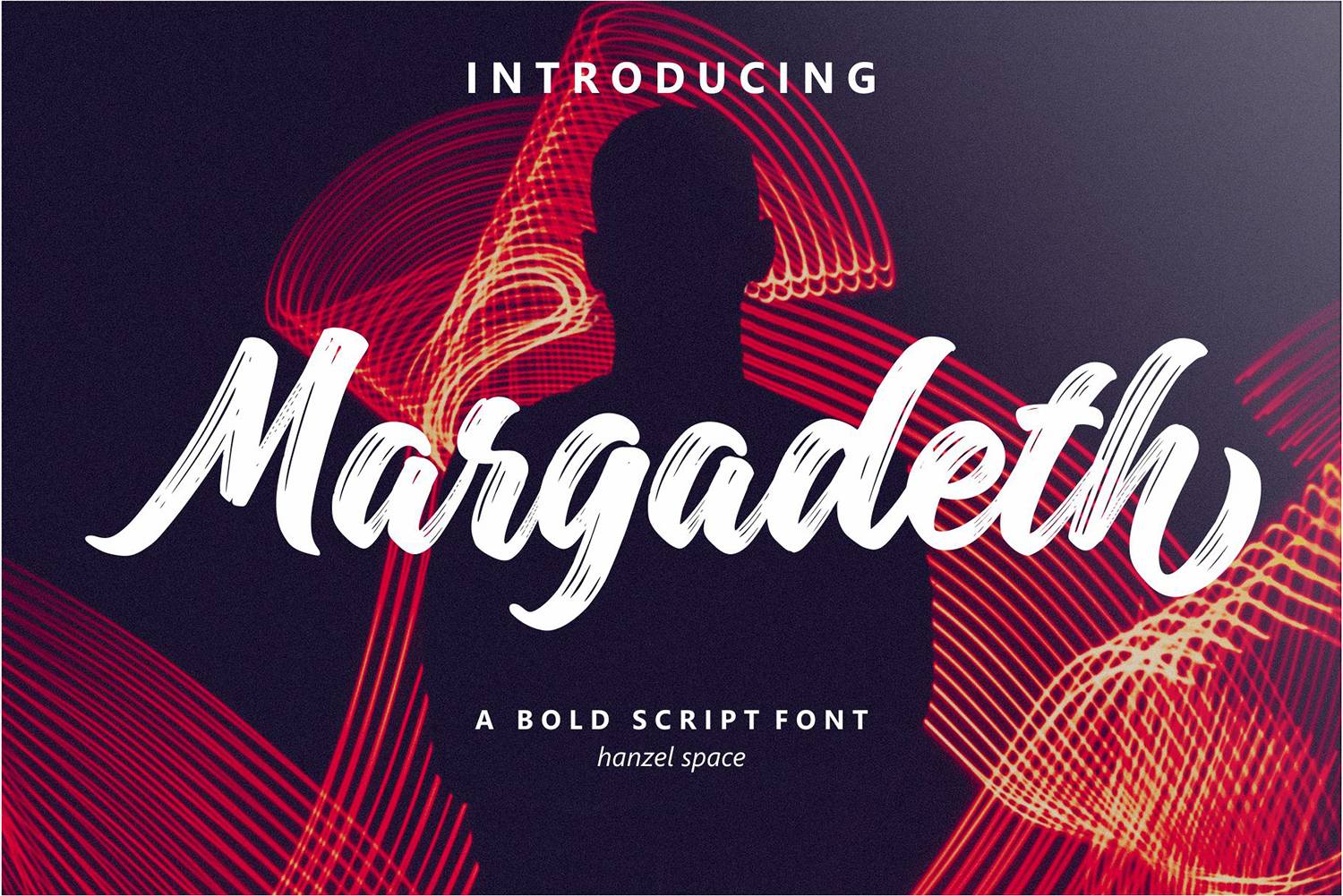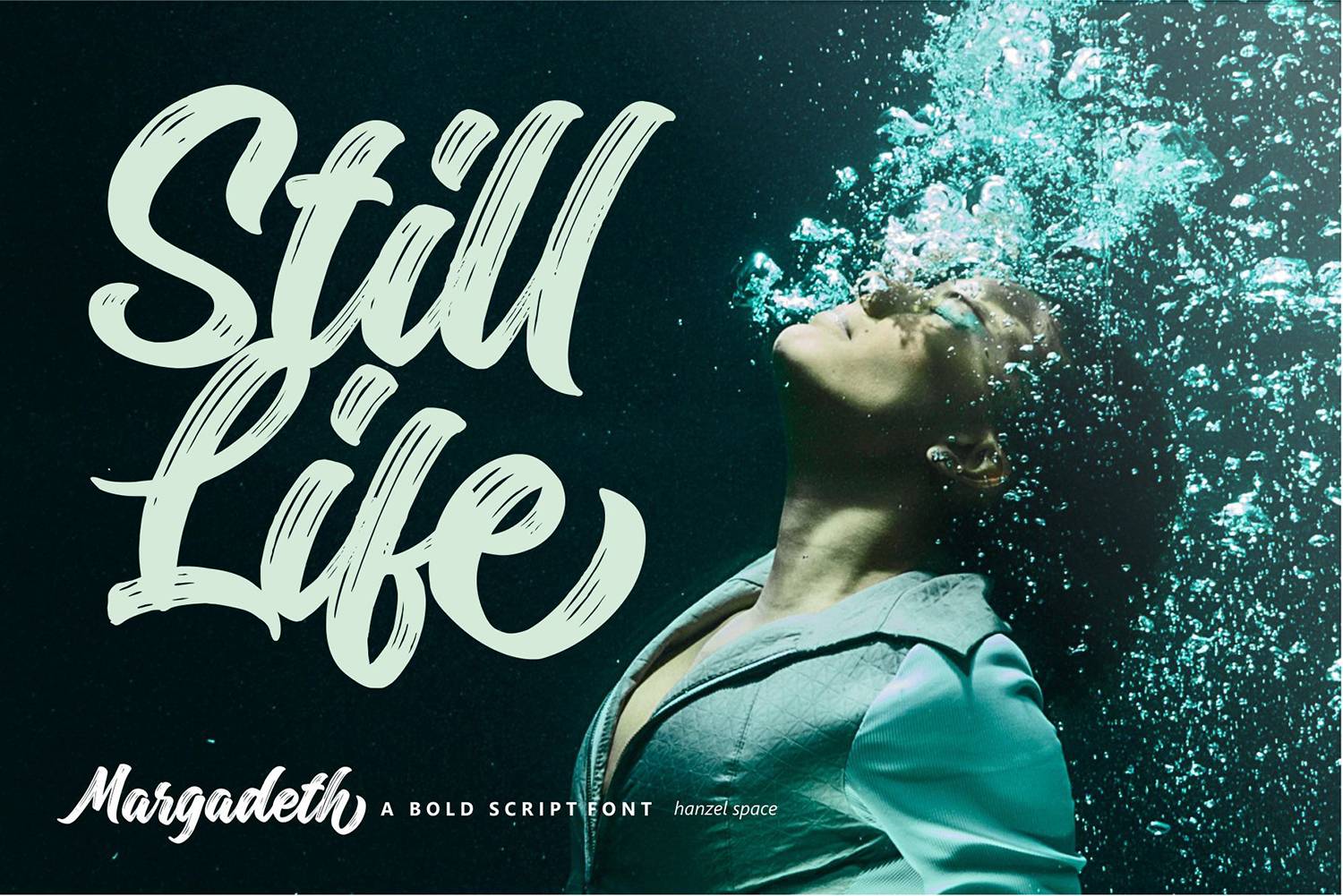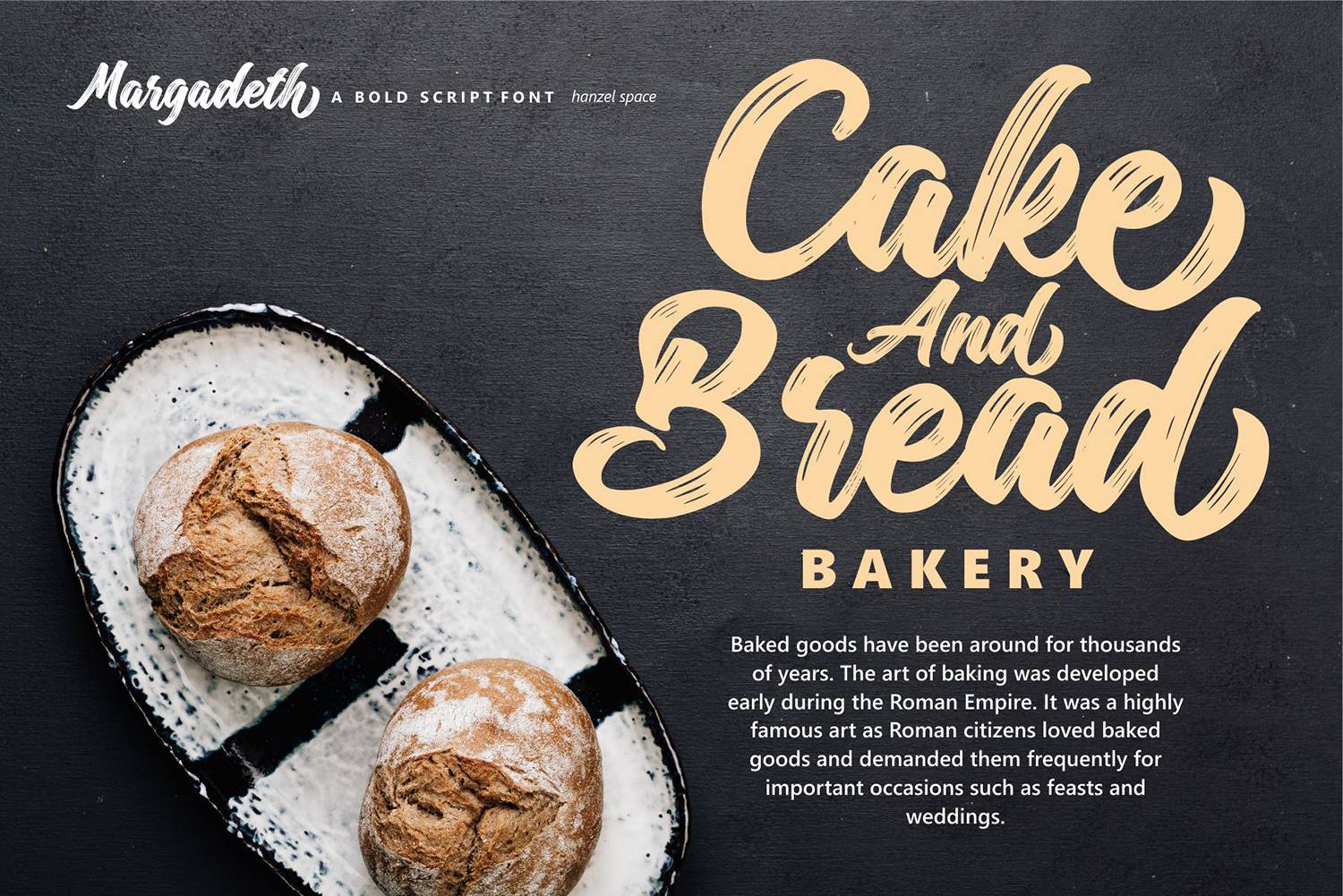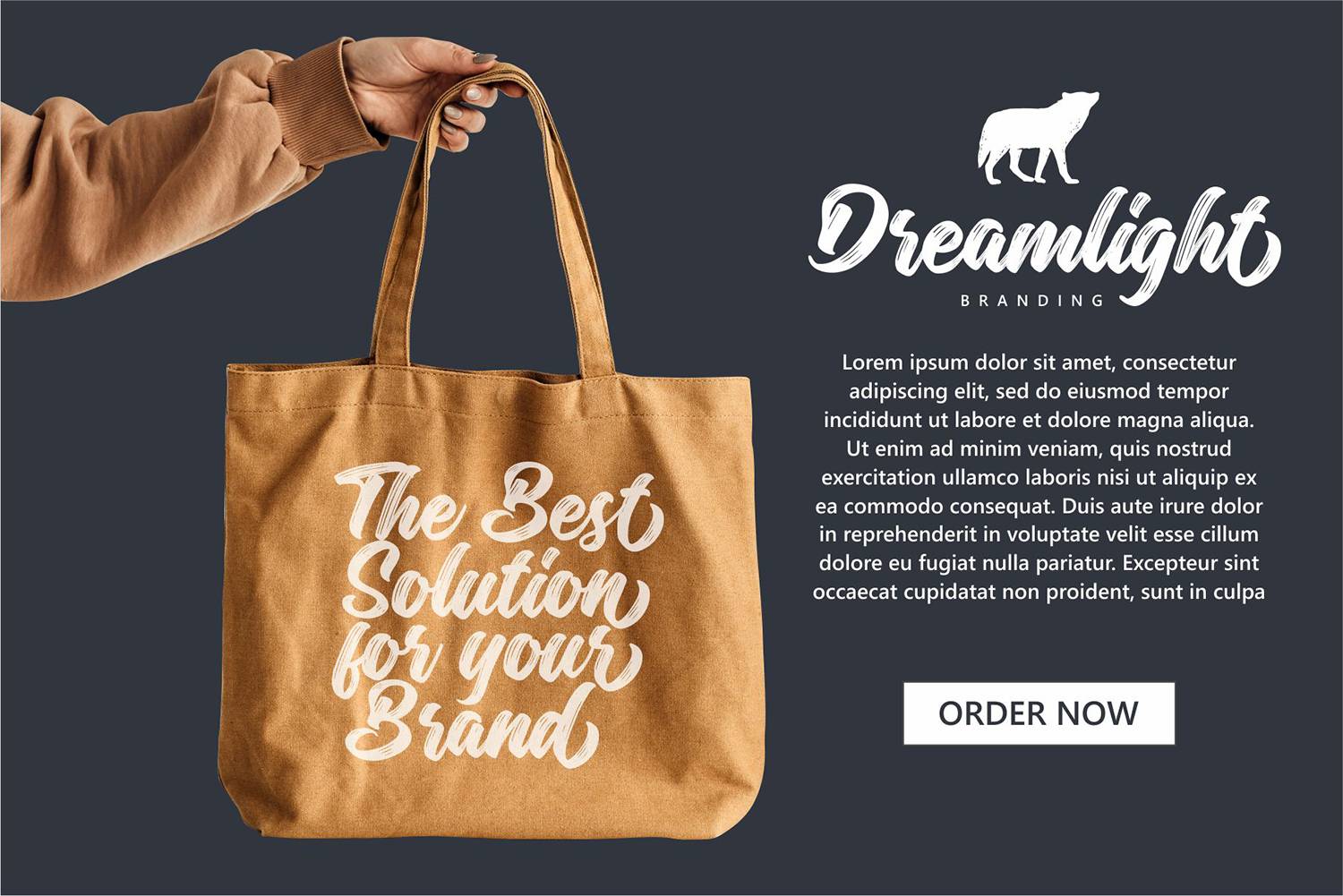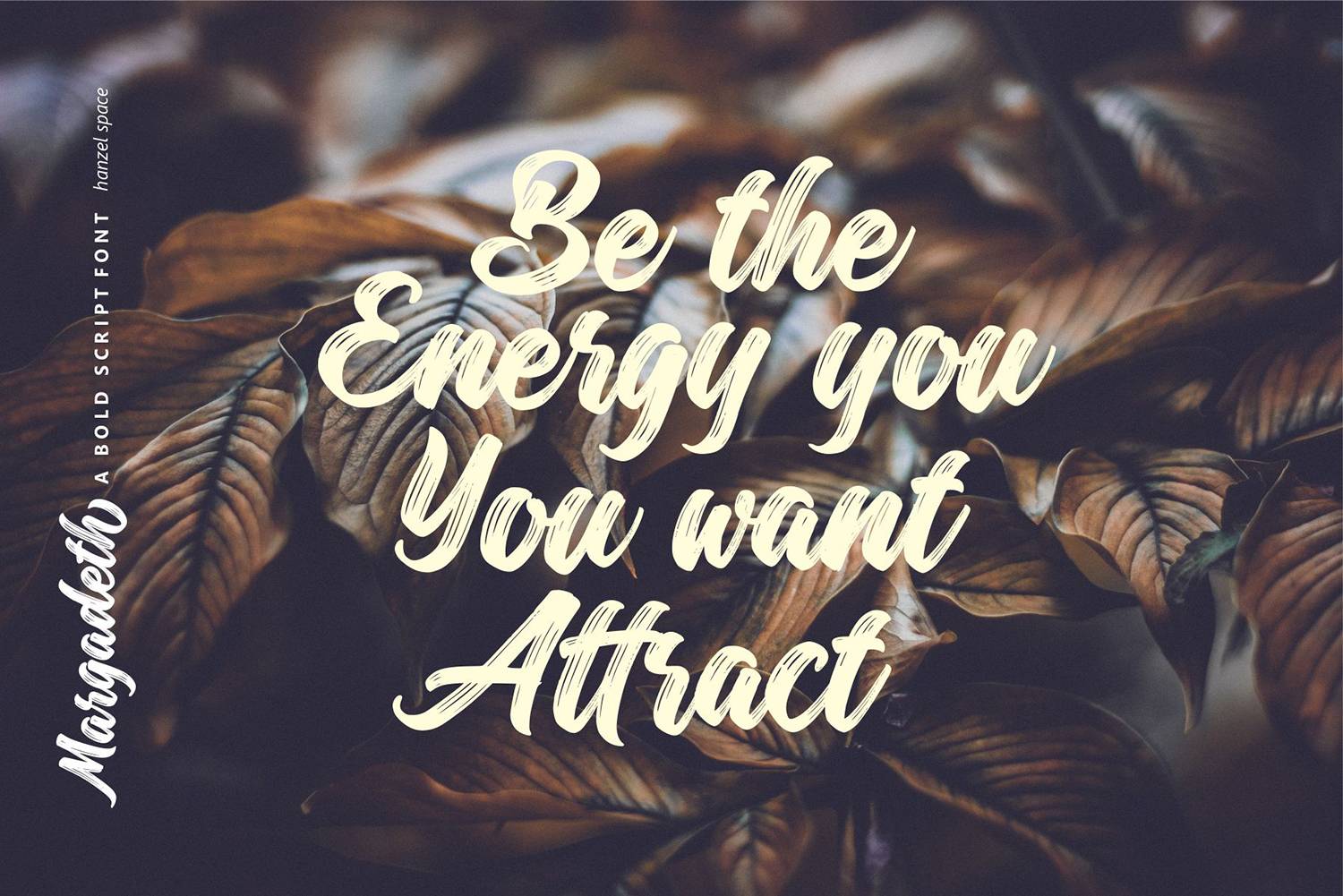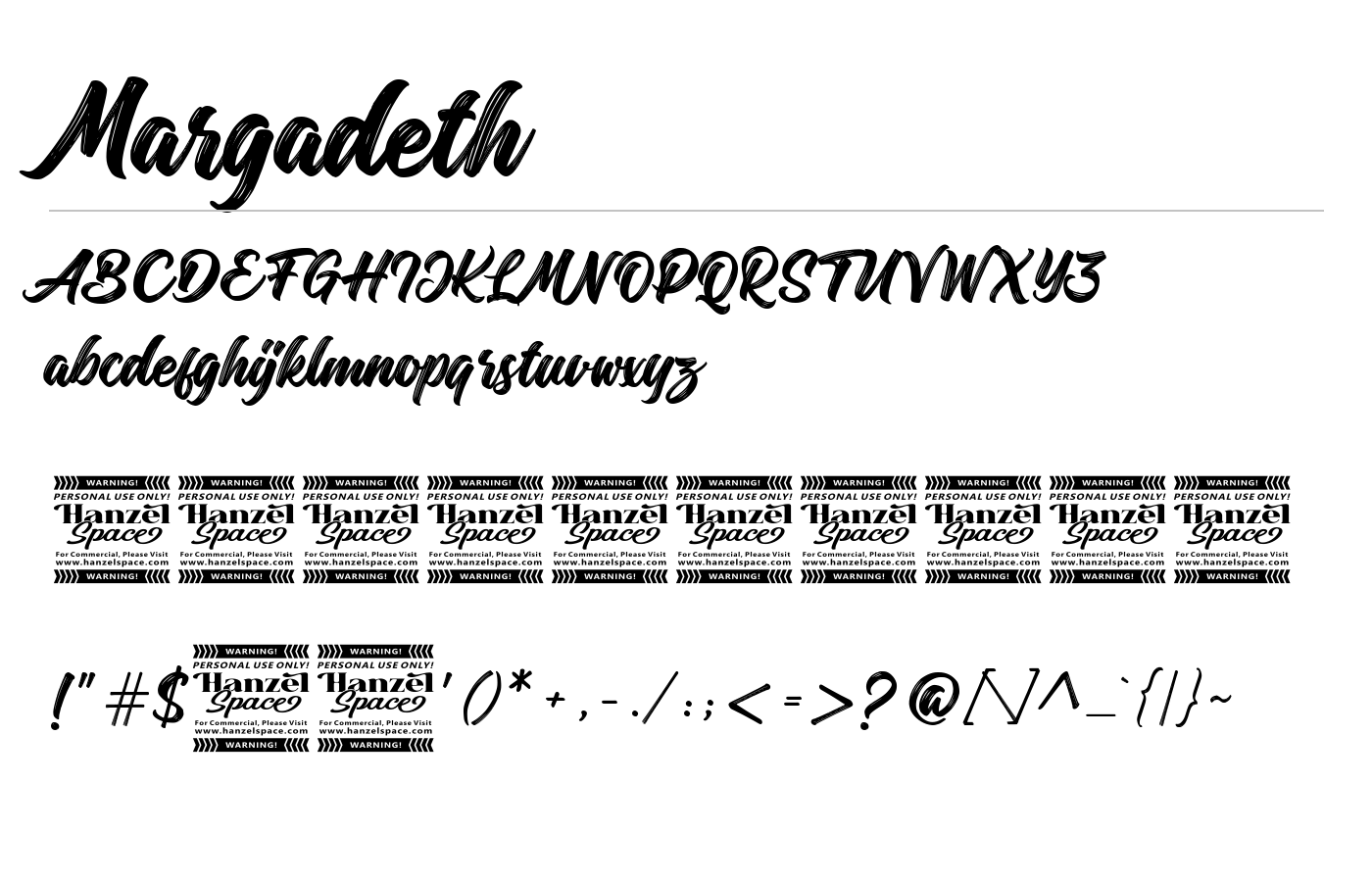
Margadeth is a bold, brush-script font with a lively, hand-painted feel that combines thick and slightly textured strokes for a casual yet dynamic look. Its high x-height and flowing letterforms make it perfect for energetic branding, headlines, and creative projects seeking a personal, artistic touch. This font shines in designs that want to convey warmth, creativity, and a strong visual impact.
Margadeth Font
About Margadeth Font